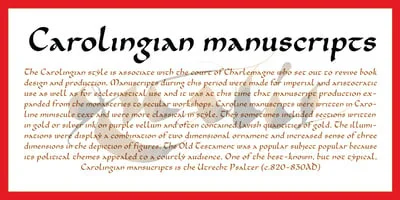
Cal Carolingian Minuscule Font
The Cal Carolingian Minuscule Font is an exceptional choice for projects that need a touch of classical history and calligraphic elegance. This font is a modern reinterpretation of a script developed in the medieval Carolingian Empire, making it perfect for creating a sense of tradition and academic sophistication. It's a great fit for designs related to history, academia, and high-end publications. Whether you're designing a book cover, a logo for a historical society, or a poster for a museum exhibition, the Cal Carolingian Minuscule Font adds a layer of quiet authority and traditional beauty to any design, ensuring your message is delivered with a sense of heritage and timelessness.
What makes this font so exciting is its masterful blend of historical accuracy and modern readability. The Cal Carolingian Minuscule Font features a clear, rounded, and uniform design that was a revolutionary step in medieval literacy. Unlike the cluttered scripts that came before it, this font provides distinct glyphs, clear word spacing, and a clean, legible appearance. This makes it an ideal workhorse for both headlines and body text, allowing you to create a cohesive and professional design system that feels both ancient and contemporary. It’s a typeface that works hard to enhance your design without distracting from the content, ensuring a polished and effective result every time.
The Cal Carolingian Minuscule Font family often includes a variety of styles to give you more creative flexibility. While its single, classic style is its most notable feature, the family can also include a slightly bolder version for added emphasis or a more delicate variant for subtle flair. This range of options allows you to build a cohesive typographic system that is consistent across all your materials. The Cal Carolingian Minuscule Font is an excellent opportunity to explore these different styles and see how they can work together to create a powerful and unified brand identity.
By choosing the Cal Carolingian Minuscule Font, you're opting for a typeface that embodies timeless elegance and strong character. It’s a font that works tirelessly to ensure your projects are not only beautiful but also highly effective at communicating a message of quality and sophistication.